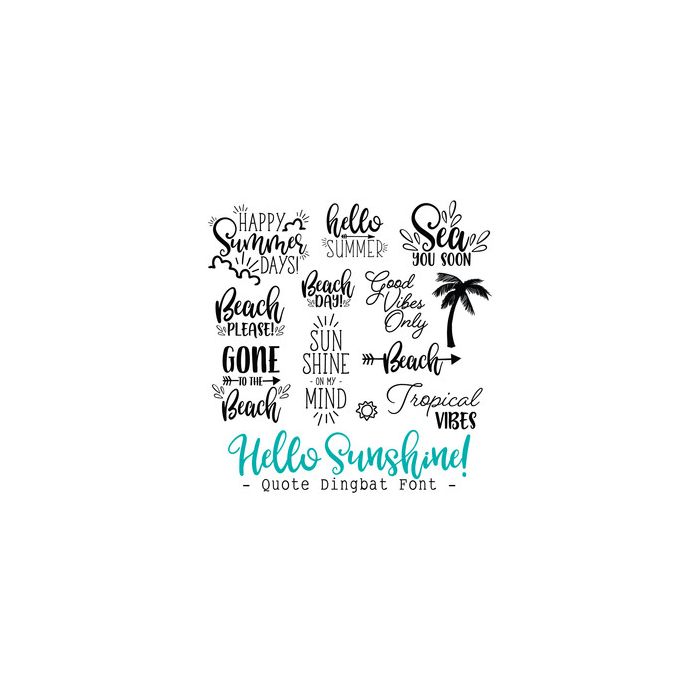
Hello Sunshine! Summer Vacation Quote Dingbat Font. Includes 26 summer vacation themed quotes, words and accessories. All are assigned to an upper case letter starting with 'A' or can be accessed via glyphs. For more design ideas, coordinating designs & products and inspiration, please visit my blog http://www.sarahhurleyblog.com